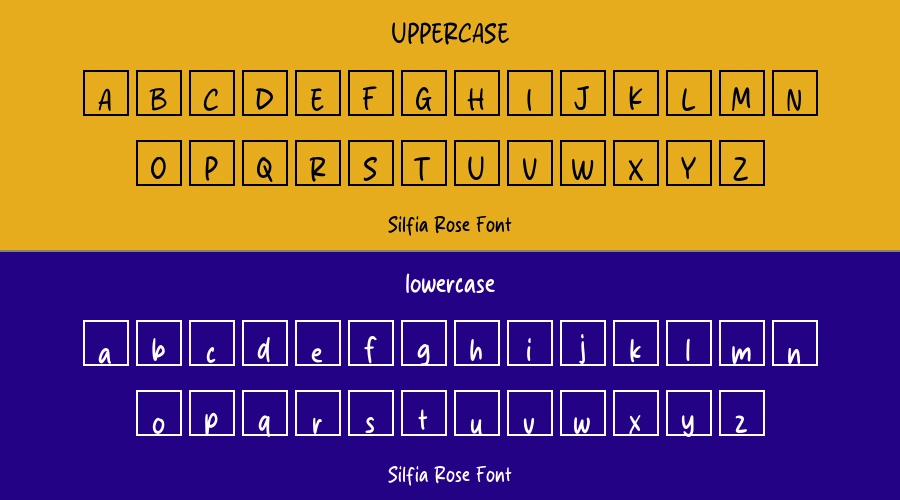
About Silfia Rose Font
Silfia Rose Font embodies typographic excellence through its masterful combination of sharp edges and reliability. Created for medical texts, this typeface delivers exceptional originality and brand alignment across all applications. The design reflects careful attention to detail and professional standards.
Advanced capabilities include distinctive rounded corners and versatile kerning pairs, giving designers creative control. When used in retail environments, Silfia Rose Font exhibits remarkable rendering. The harmonious balance between spur details and brand personality sets this typeface apart.